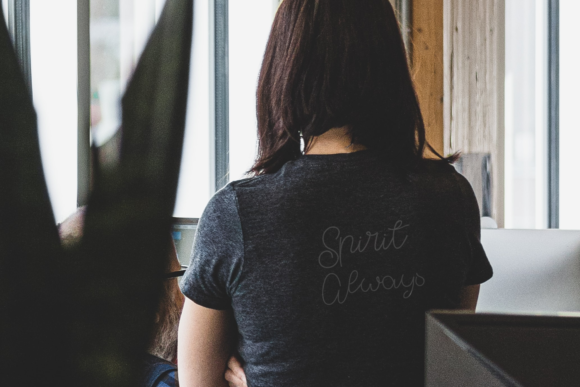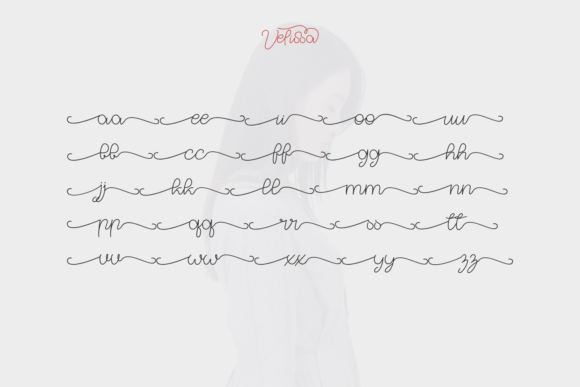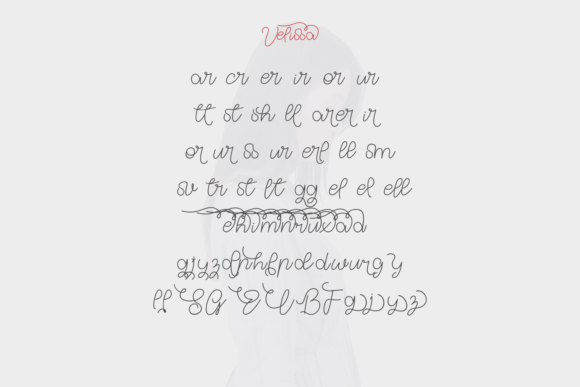
About Hi Velissa Font
Hi Velissa is a thin lettered and delicate script font. It looks beautiful on a variety of designs requiring a personalized style, such as wedding invitations, thank you cards, weddings, greeting cards, logos and so on.